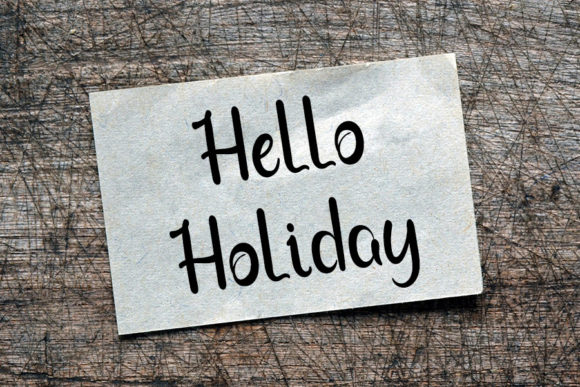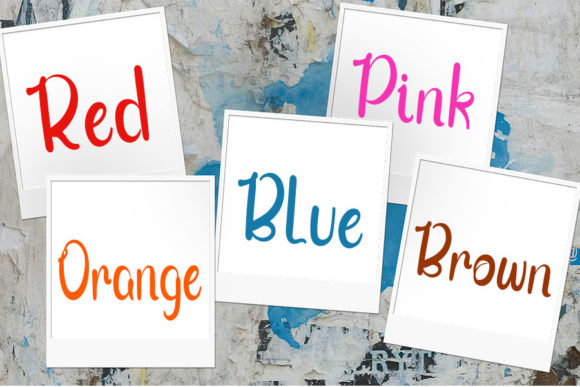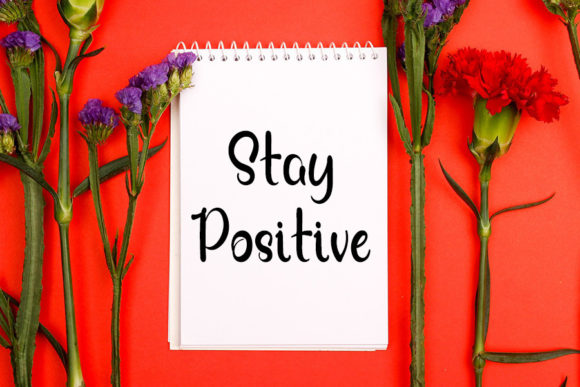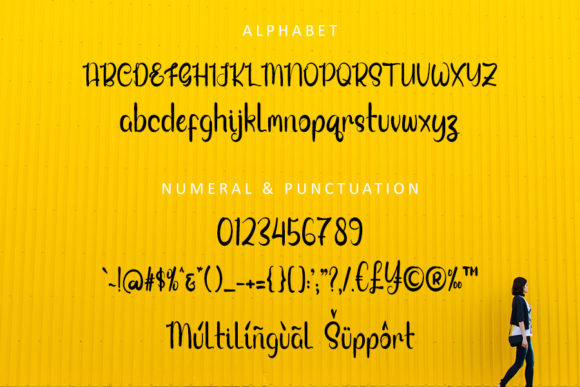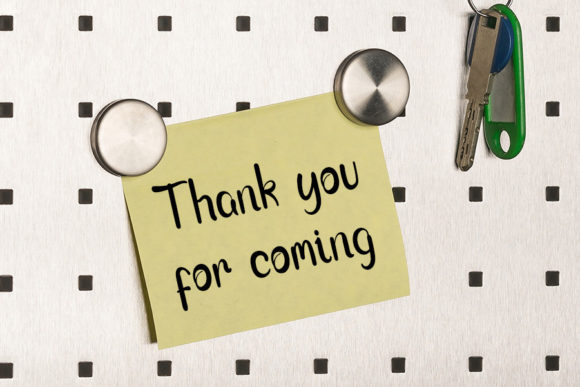
Flower Blosom Font
Flower Blosom is a stylish display font with a contemporary atmosphere and impeccable form, inspired by a timeless classic calligraphy. Balanced and varied, this font was designed to enhance the beauty of your projects.